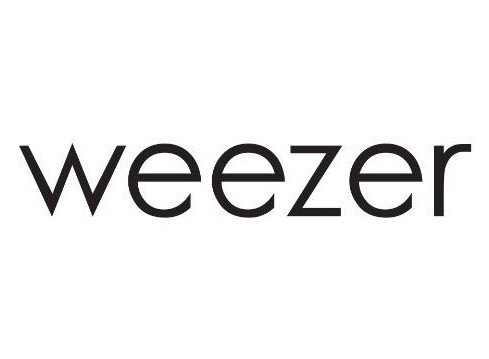
We are now presenting a simple but unique typeface that is Weezer Font which is the best professional typeface that was used by the most professional and experienced graphic designers in their regular projects. The font contains some similarity with the fonts like Country Western Font and King luau Font
View Of Weezer Font
Before scroll down, lets see the example of this typeface that is best for pairing with primetime font which we provided by showing all the characters and glyphs contains in this font.
This is the super beautiful and clean geometric sans serif typeface which is best for book writing, titling, headlines, website design and other typographic designs can easily develop with this font because of its attractivity.